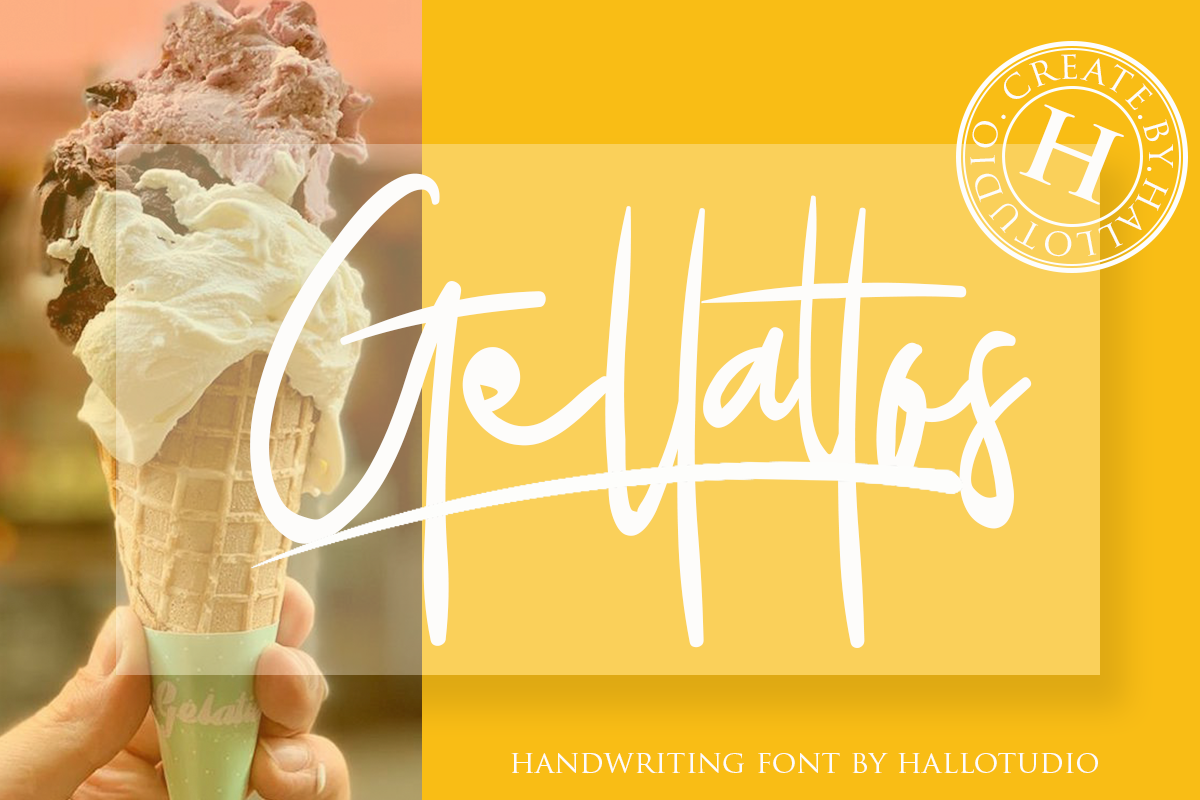
Gellattos
Gellattos is handwritten signature font..
Gellattos is perfect for branding projects, logo, wedding designs, social media posts, advertisements, product packaging, product designs, label, photography, watermark, invitation, stationery and any projects that need handwriting taste.